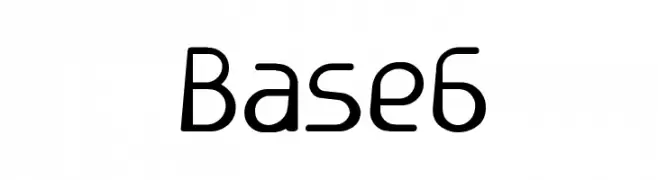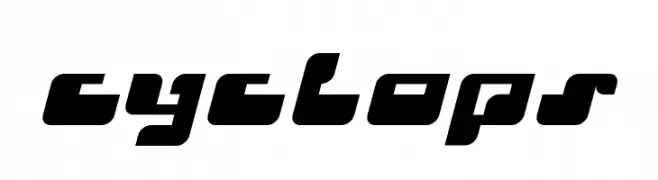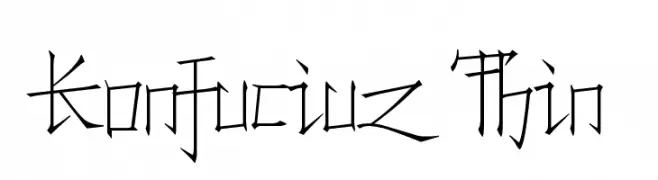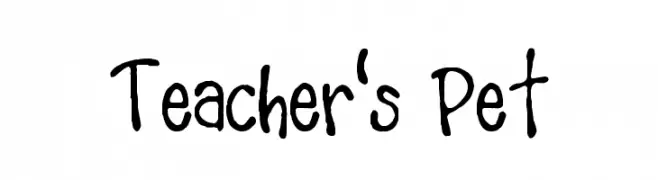
A playful, handwritten font with a whimsical and friendly style.
A thin, angular font with sharp edges and a geometric, modern design.
A bold, futuristic font with geometric, block-like characters and a dynamic slant.
A smooth, flowing script font with a modern yet timeless appeal.
A modern, monospaced font with a geometric and rounded design.
A bold, industrial font with a mechanical, geometric design.